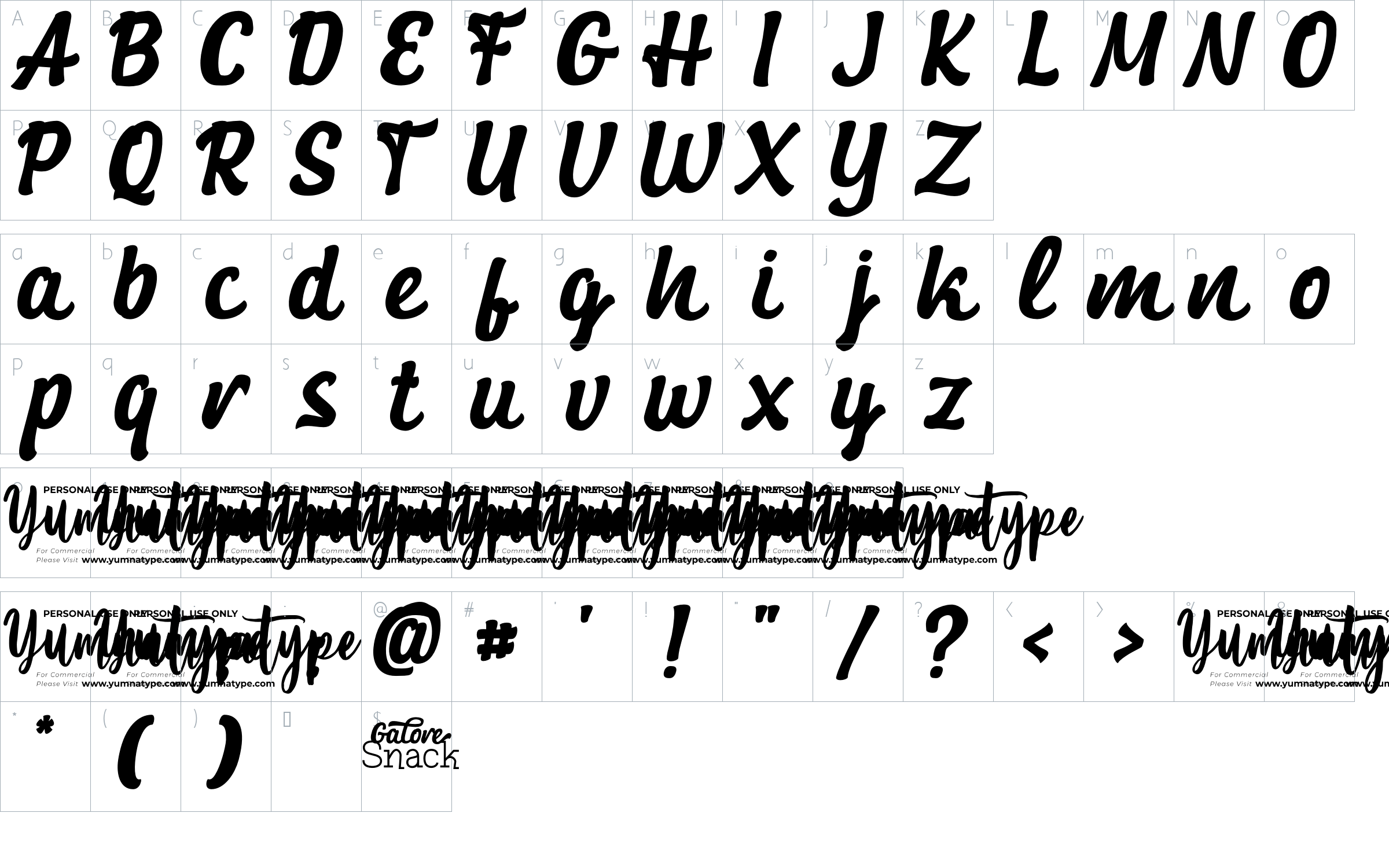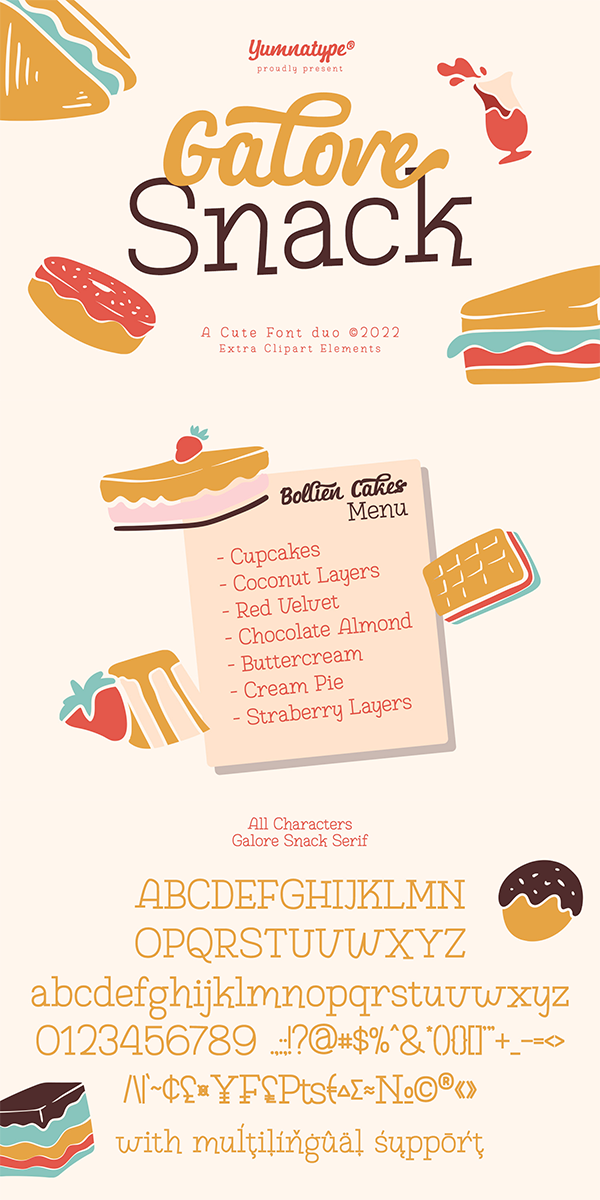
Galore Snack Font
About Galore Snack
Galore Snack-with the combination between script and display font styles you can mix, match, and call your own. The script style generates modern and elegant vibes with its curvy strokes. Through the display font, it creates simple, clean yet versatile looks. This harmonious font duo supporting and advocating each other to make awesome result in your design. You also get 15 illustrations as special extra that you can use as you wish.
-Uppercase and lowercase
This font would looks great on your branding, logos, social media quotes, stickers, posters, wall art, merchandise, social media, and many more. Get more inspiration about how to use it by seeing the font preview.